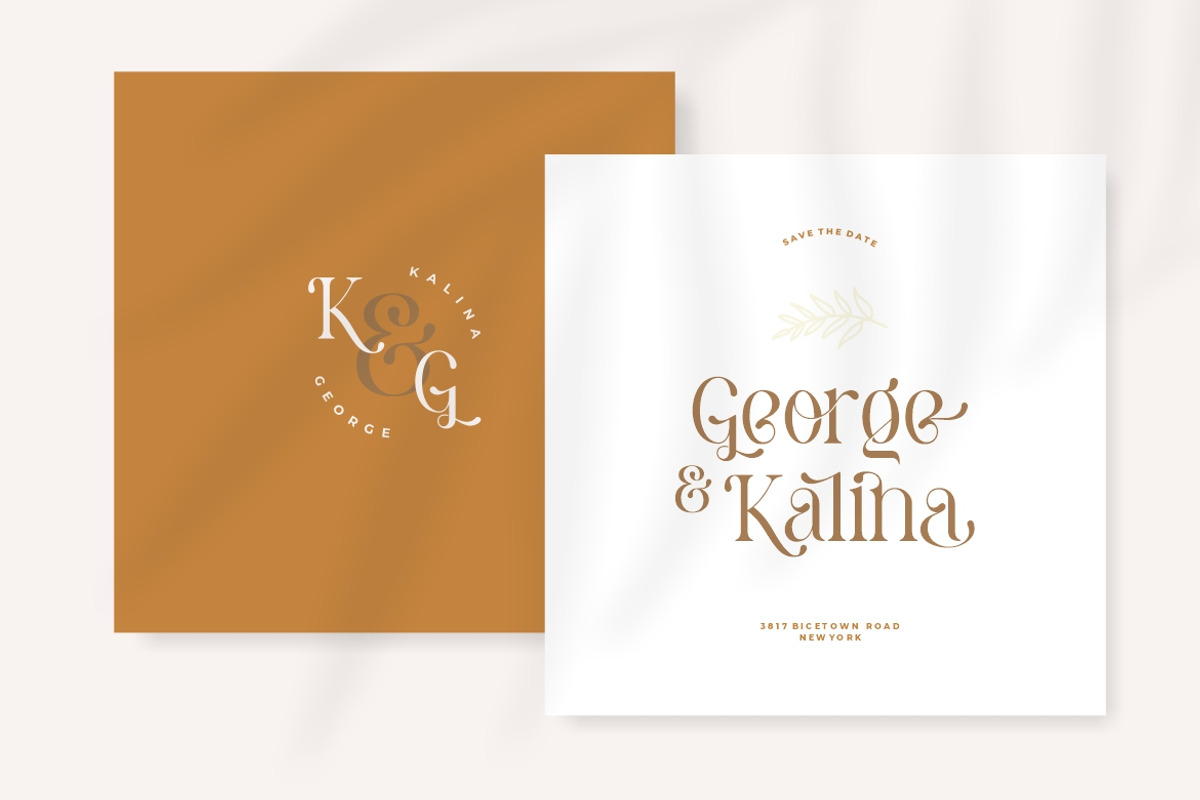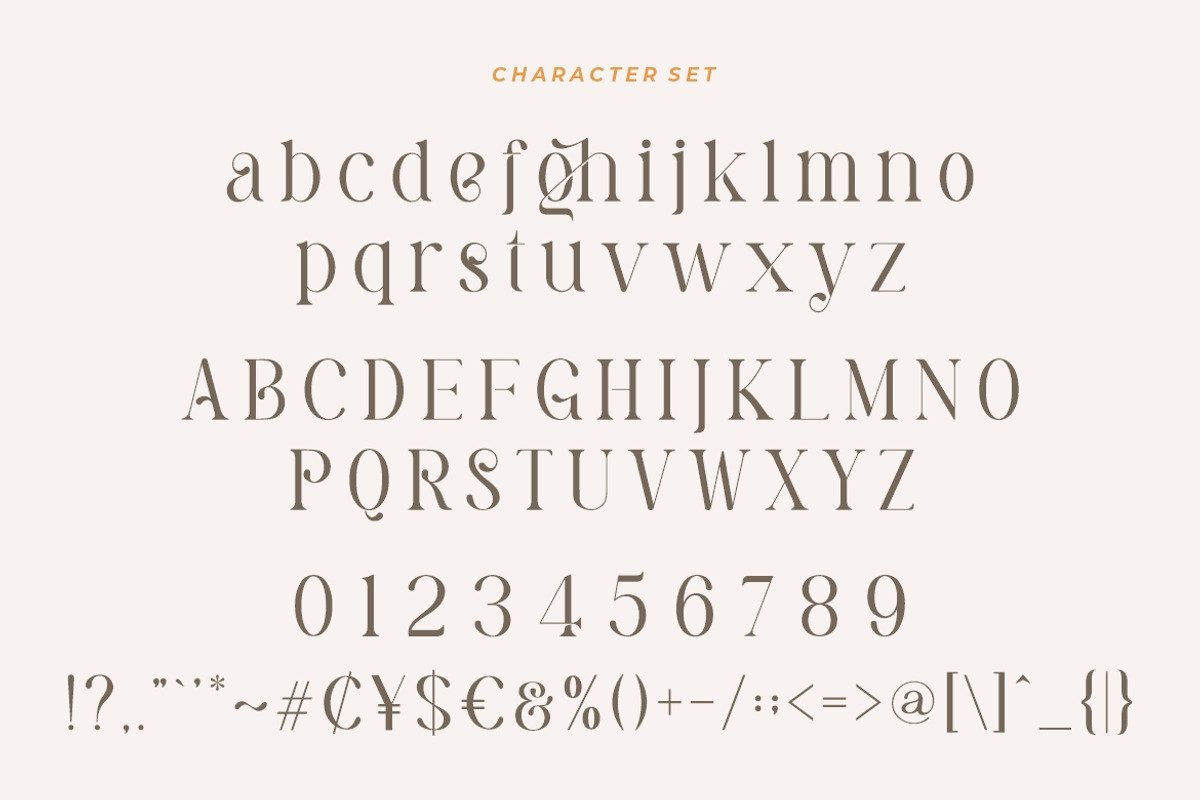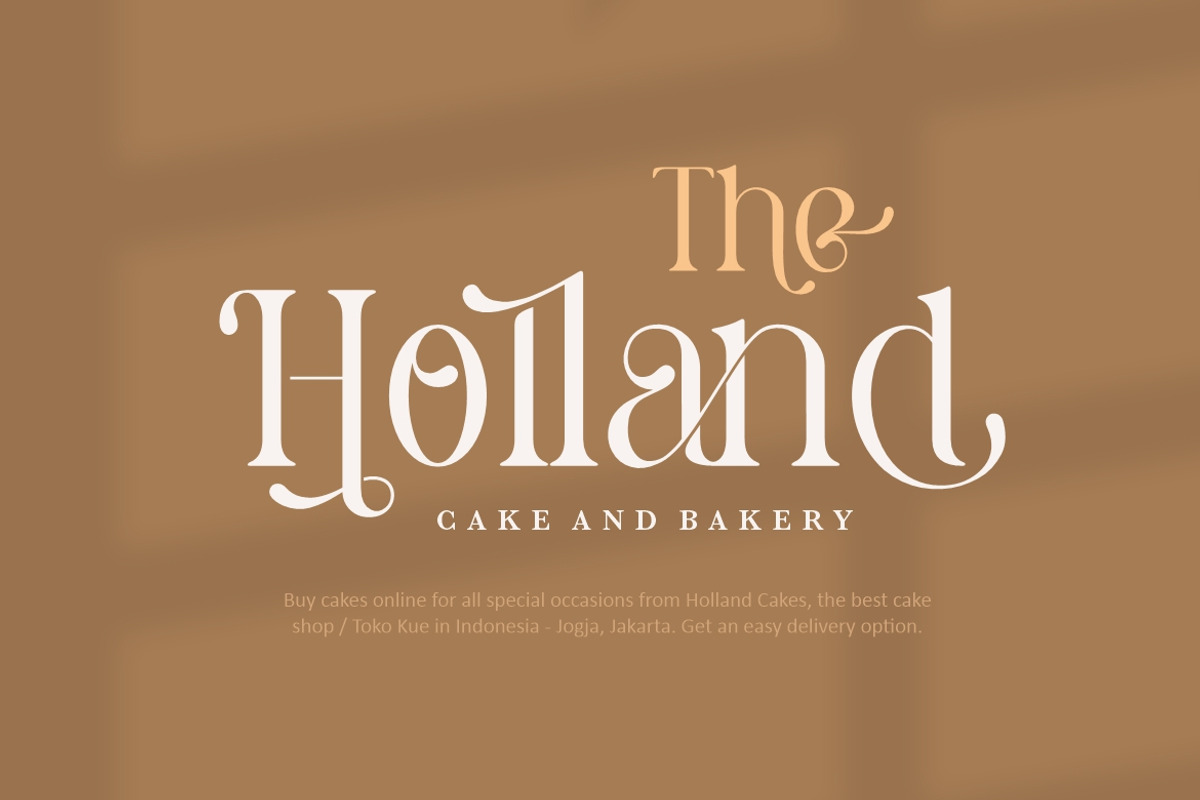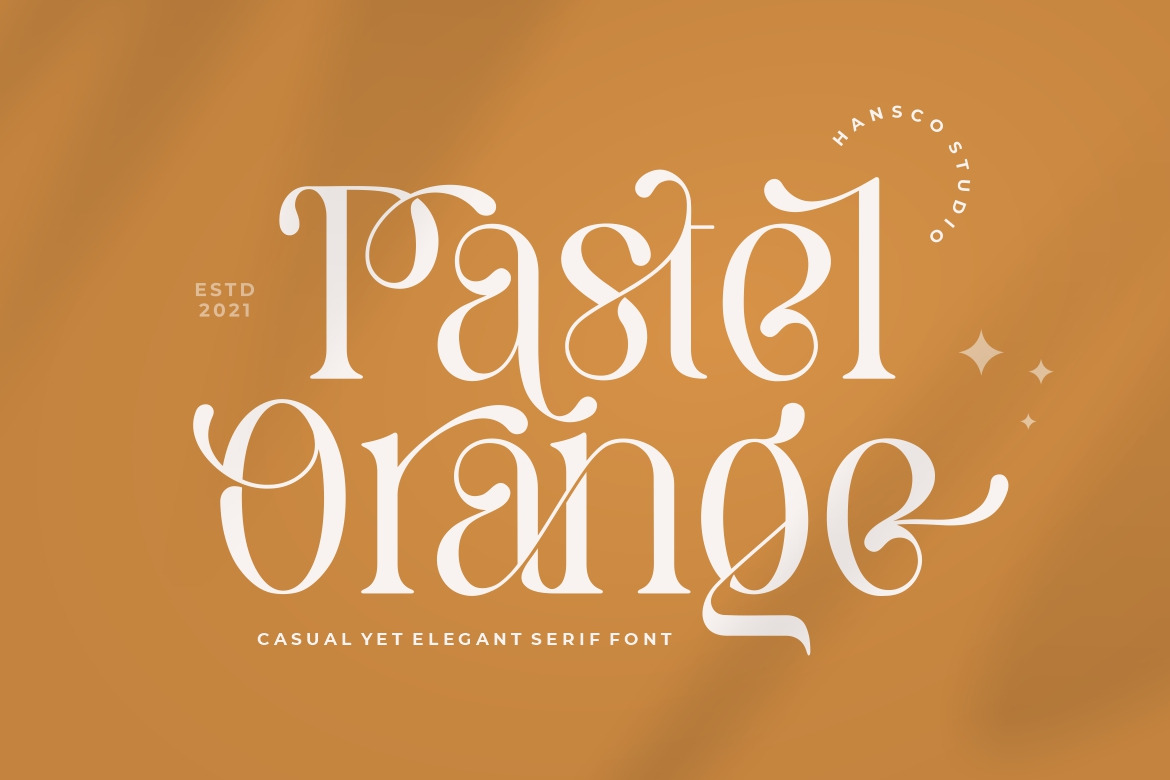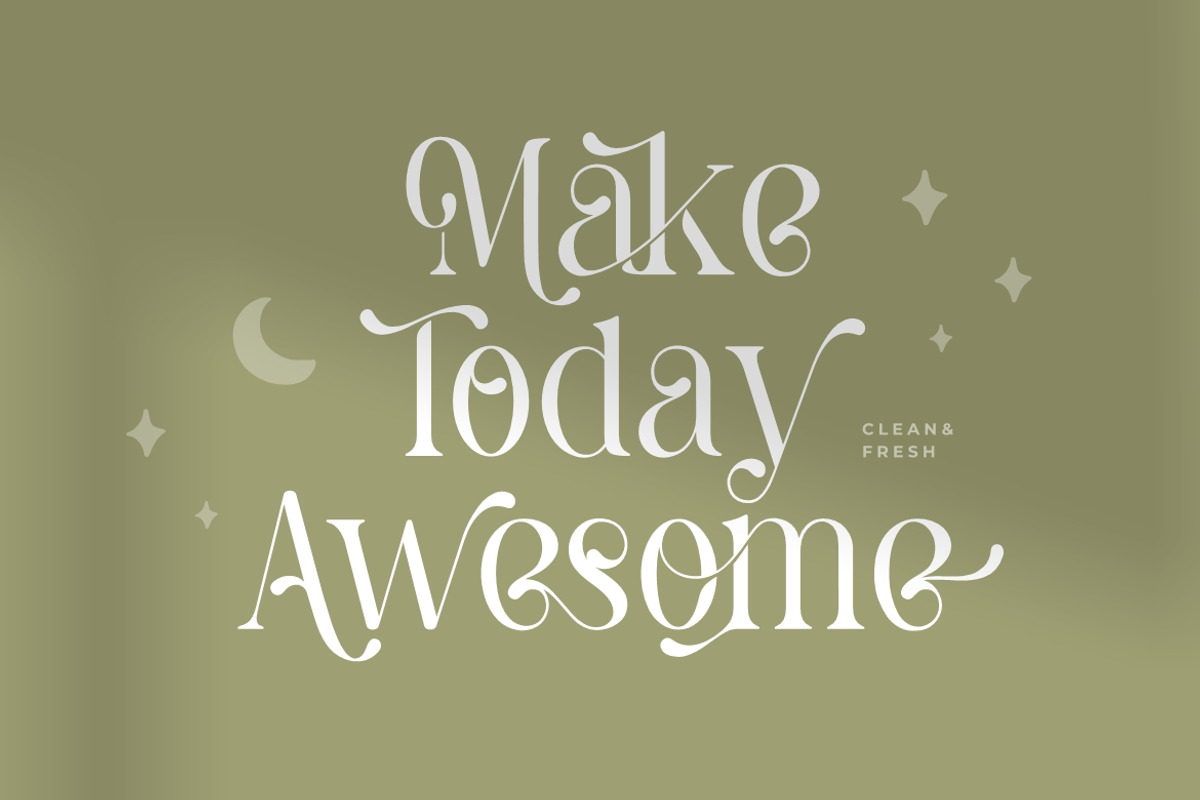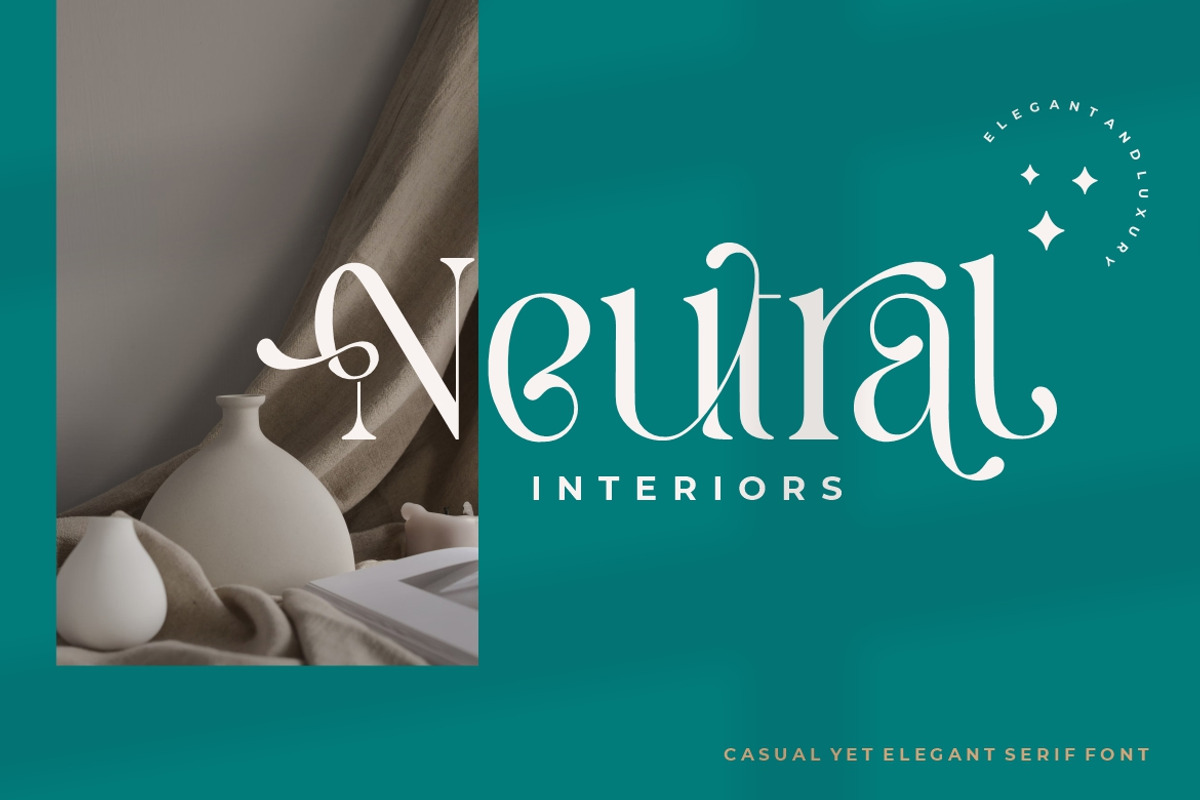
Pastel Orange - Casual Serif Fonts
Pastel Orange is incredibly casual and elegant serif font with rounded tails that will add a timeless look to any design project!. Very suitable for logo, brand identity pack, packaging designs and many more..